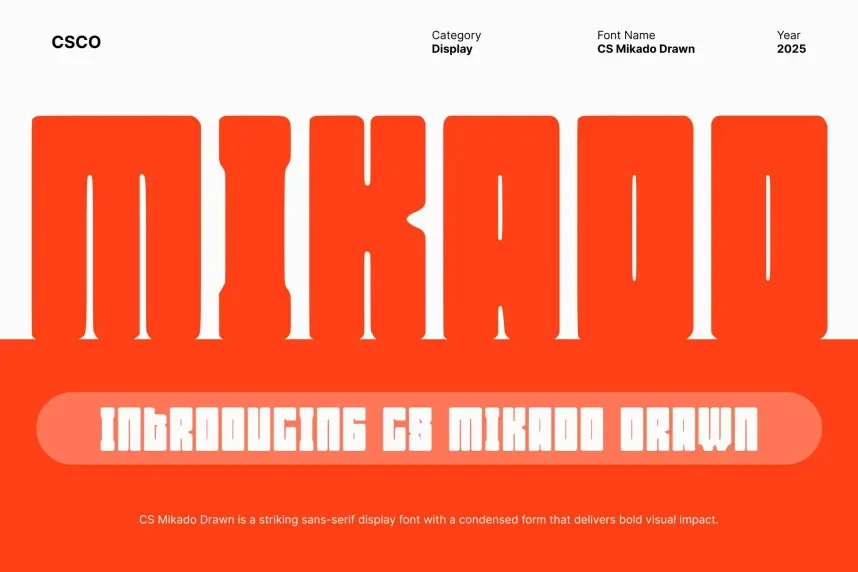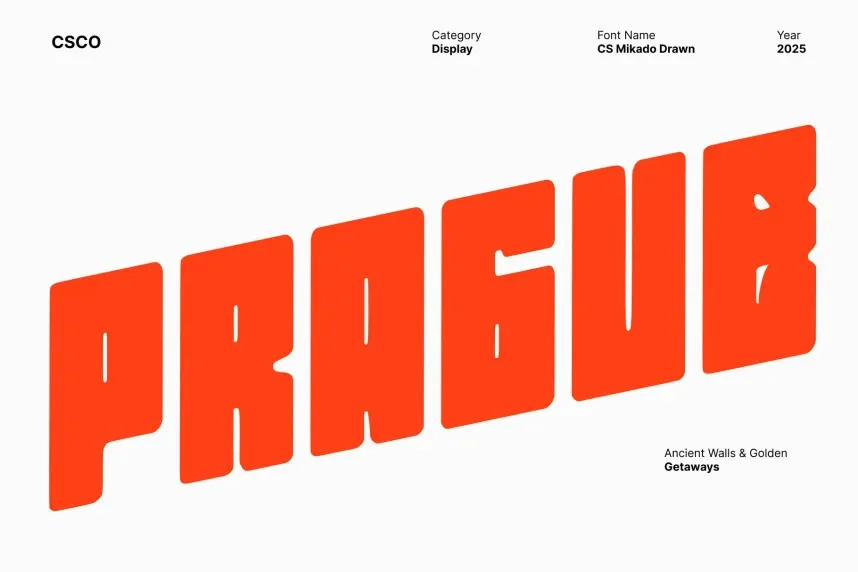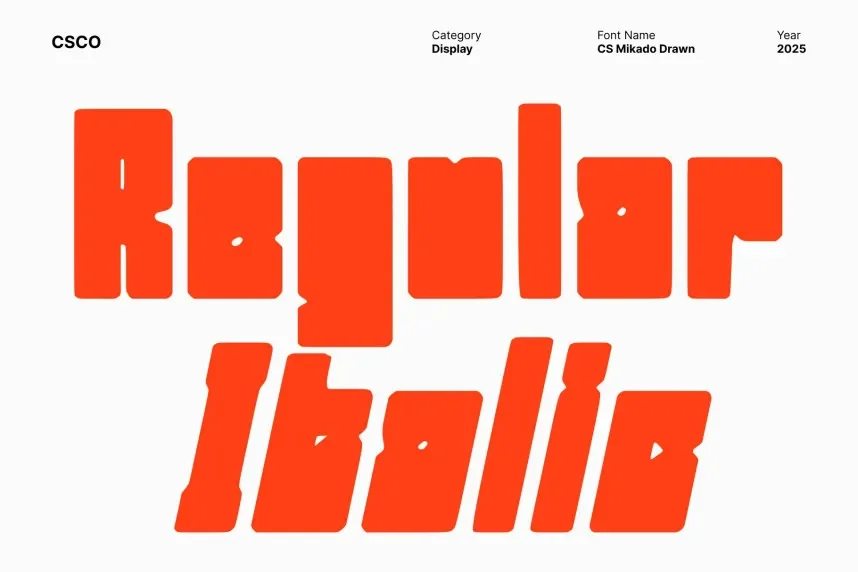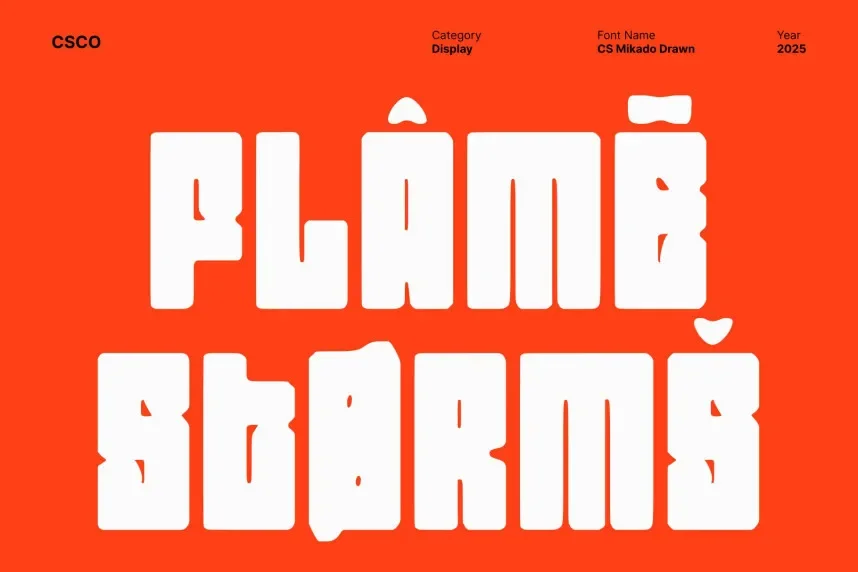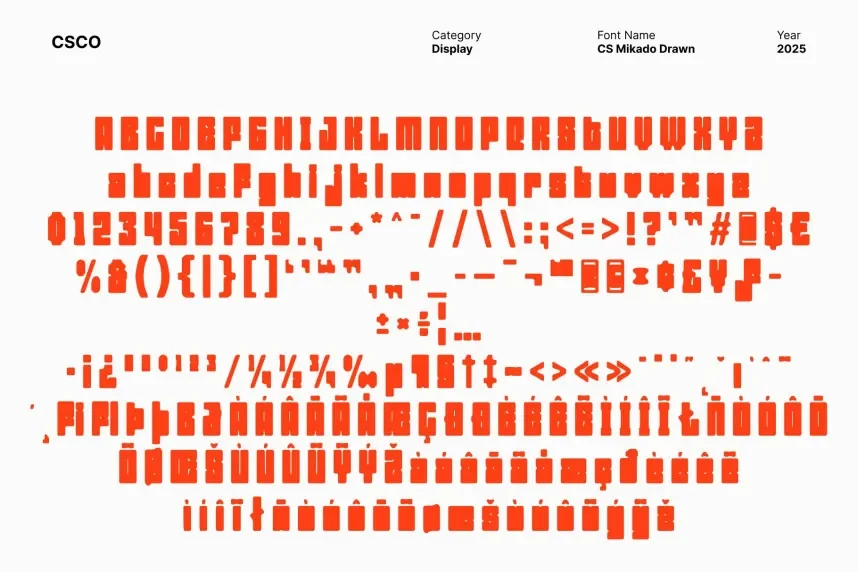
CS Mikado Drawn Font addresses the need for a unique, hand-drawn display font that captures attention while remaining readable. It’s suitable for projects that require a handcrafted, artistic appearance.
CS Mikado is a display font with irregular, sketchy strokes and hand-drawn letterforms. Its organic style makes it stand out in headlines, posters, and branding. The varying stroke thickness adds character, while the spacing ensures legibility at larger sizes.